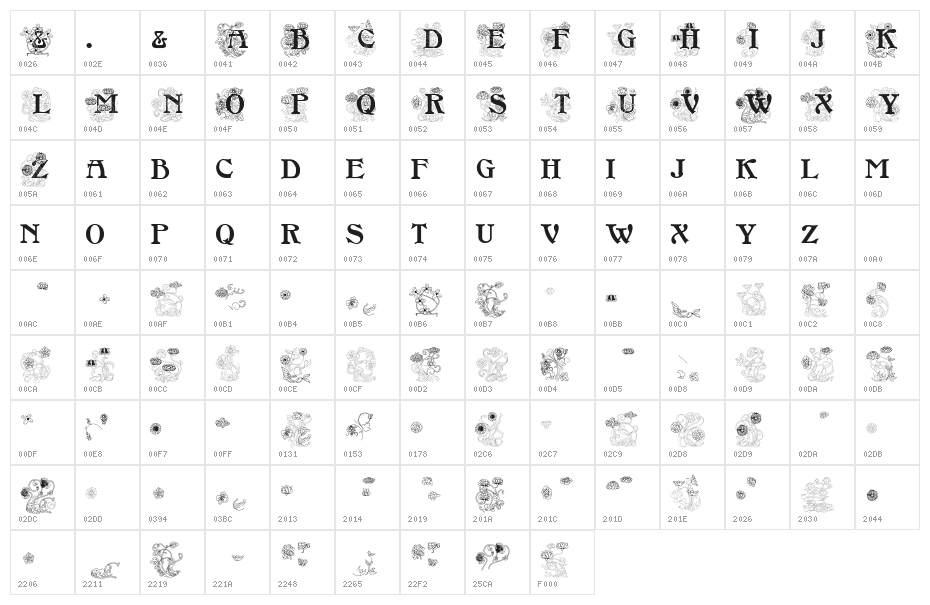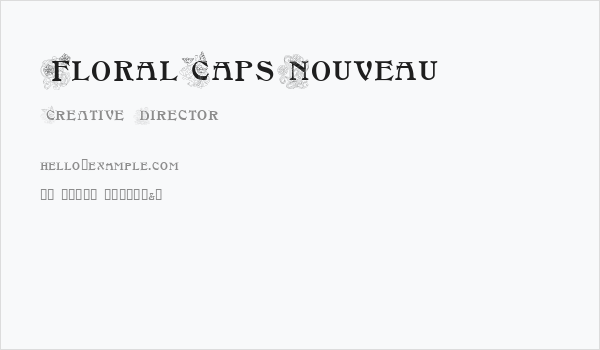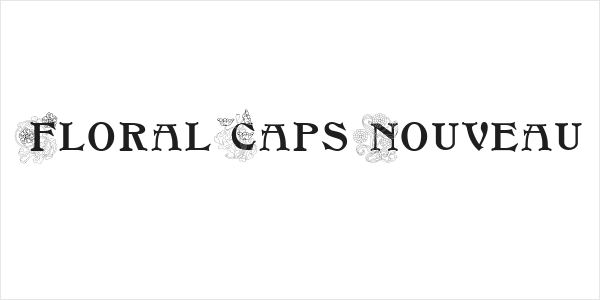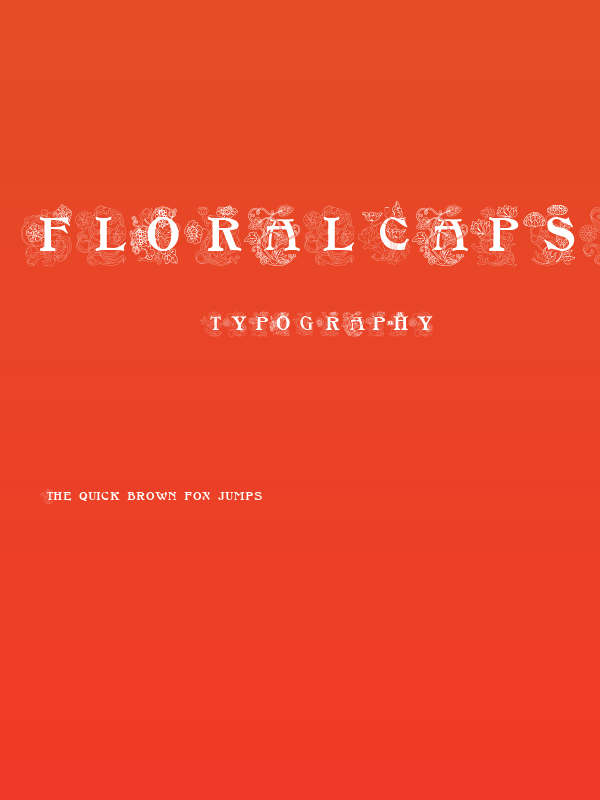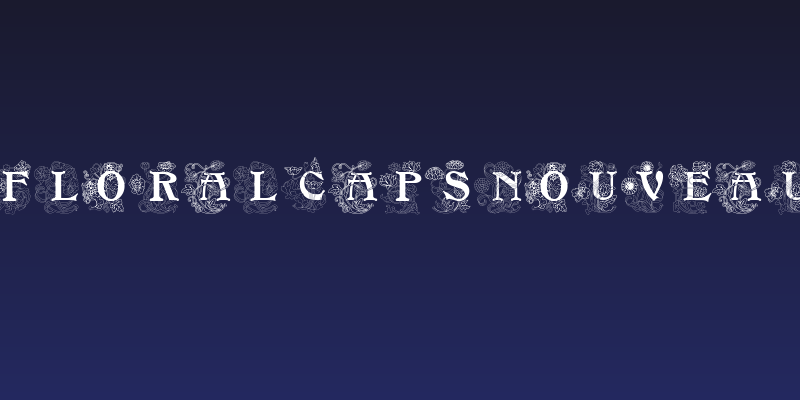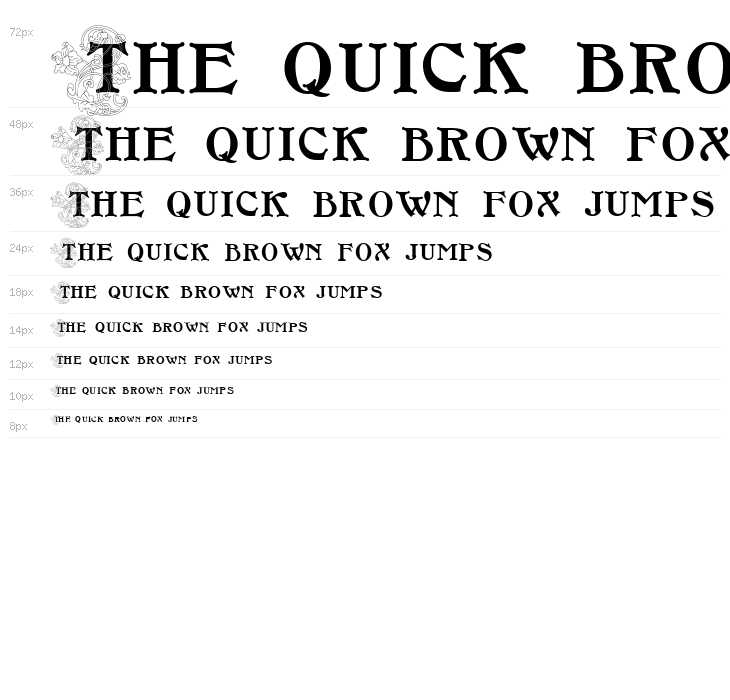
FloralCapsNouveau Font
FloralCapsNouveau Description
This font features an ornate and decorative style, with each letter intricately designed with floral and vine-like embellishments. The uppercase letters are particularly elaborate, showcasing a blend of classic serif structures with artistic flourishes that create a sense of elegance and sophistication. The lowercase letters maintain a more traditional serif appearance, providing a balance between readability and decorative appeal. The numerals and special characters continue this theme, with unique and artistic interpretations that make them stand out. This font is ideal for projects that require a touch of vintage charm and artistic flair.
| Overall Style | Vintage, Decorative |
| Use Case | Headlines, Logos, Decorative text |
| Proposed Projects | Ideal for wedding invitations, vintage-themed posters, book covers, and branding that requires a touch of elegance and artistry. |